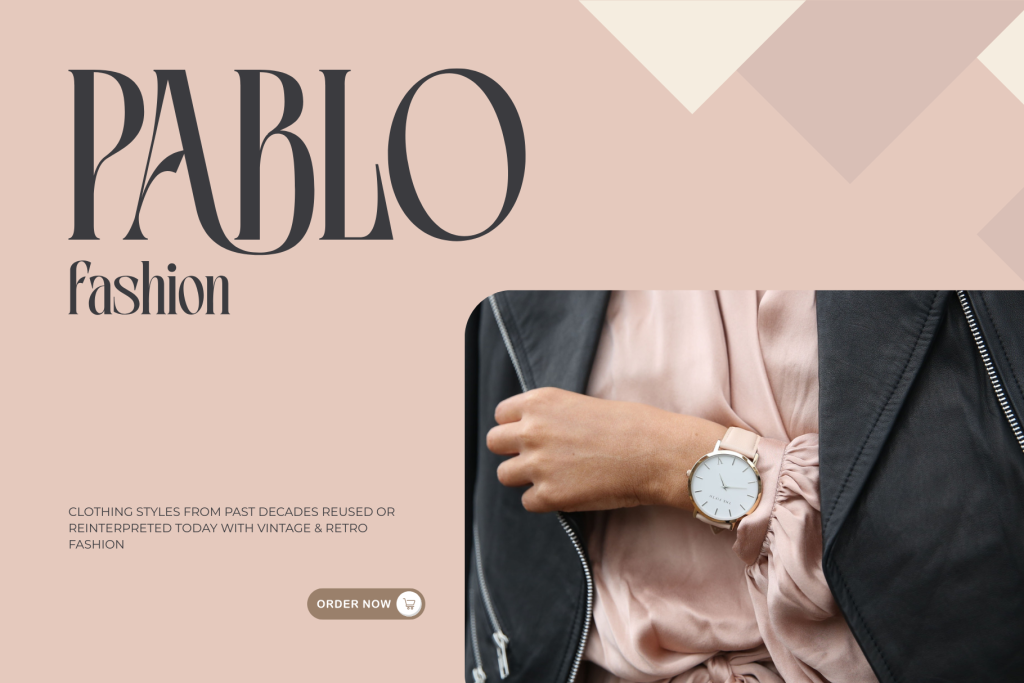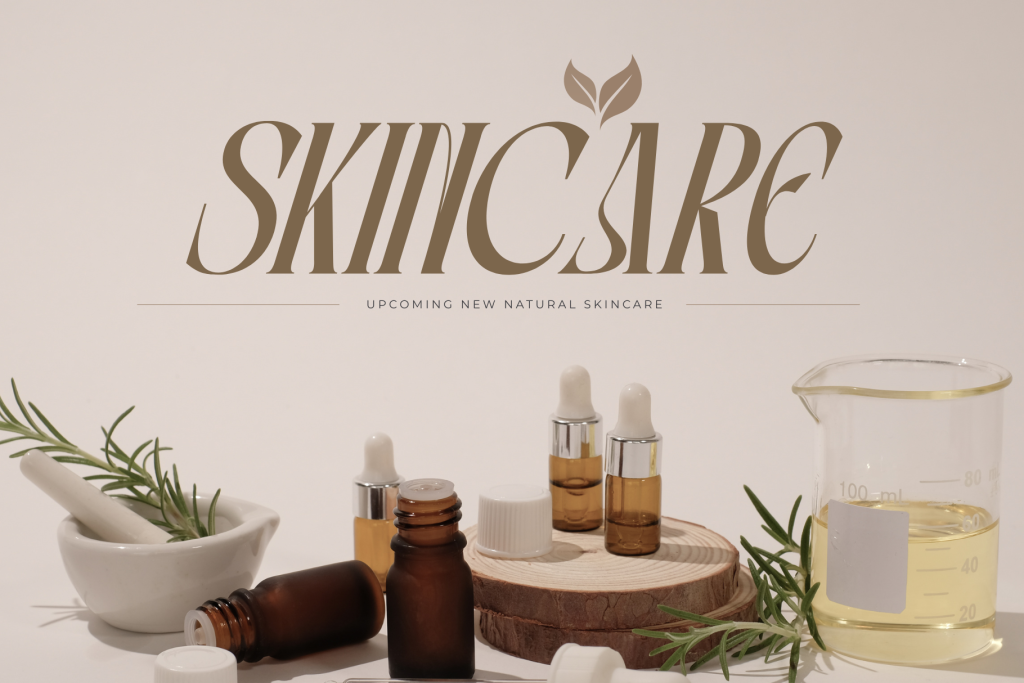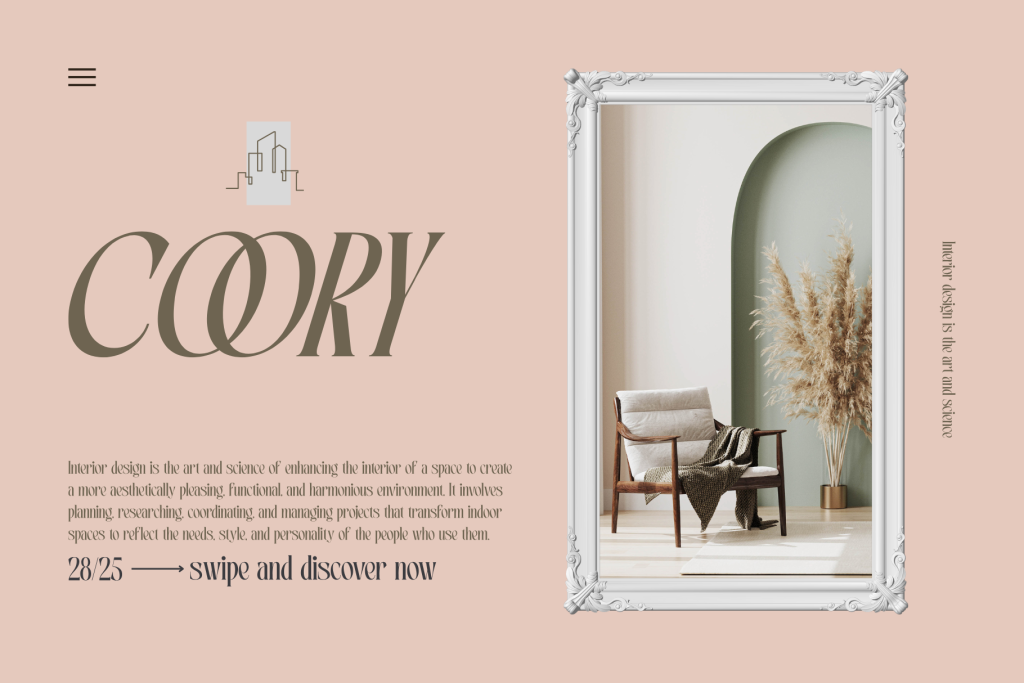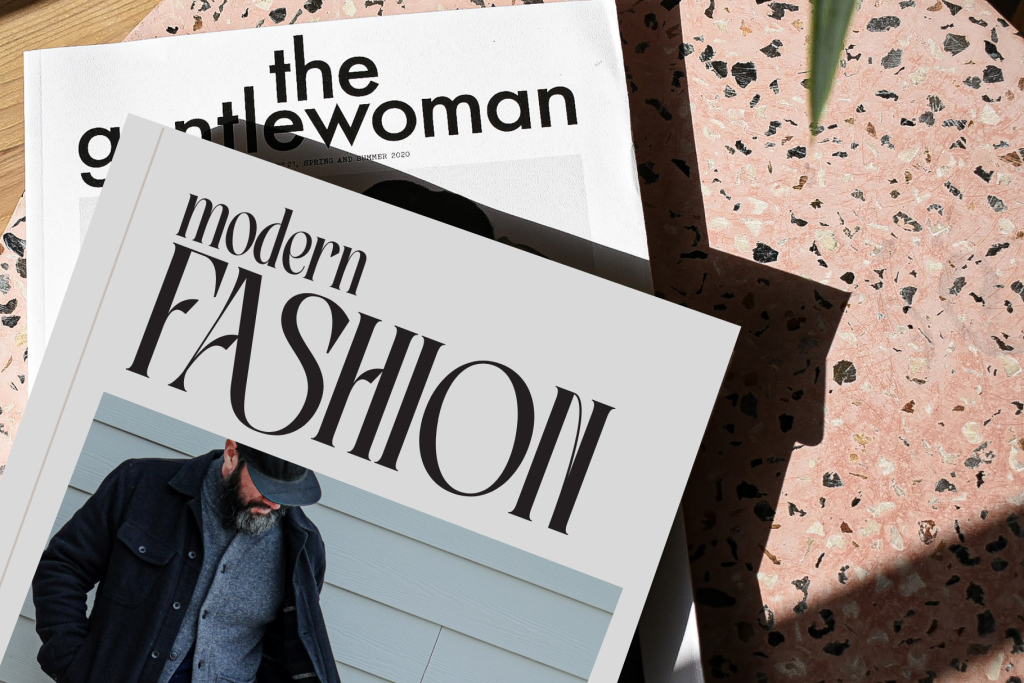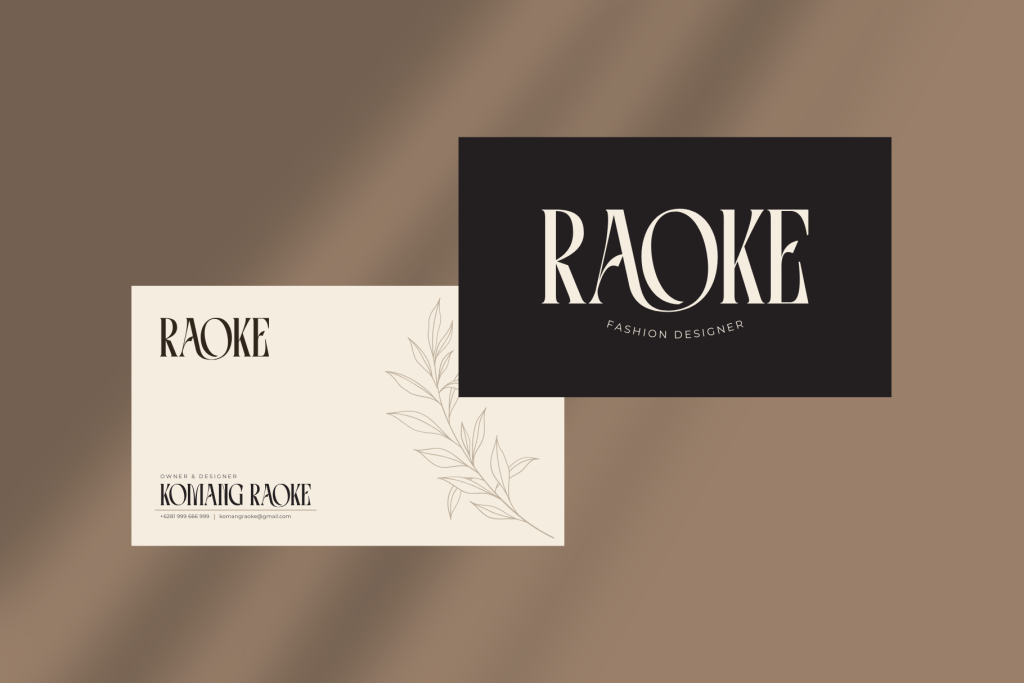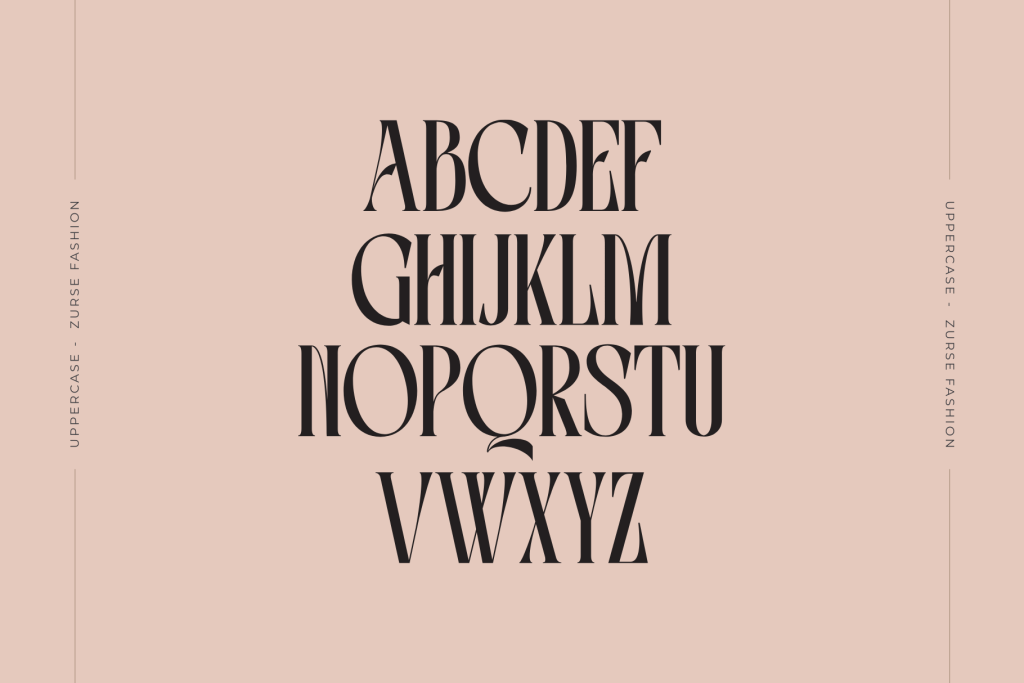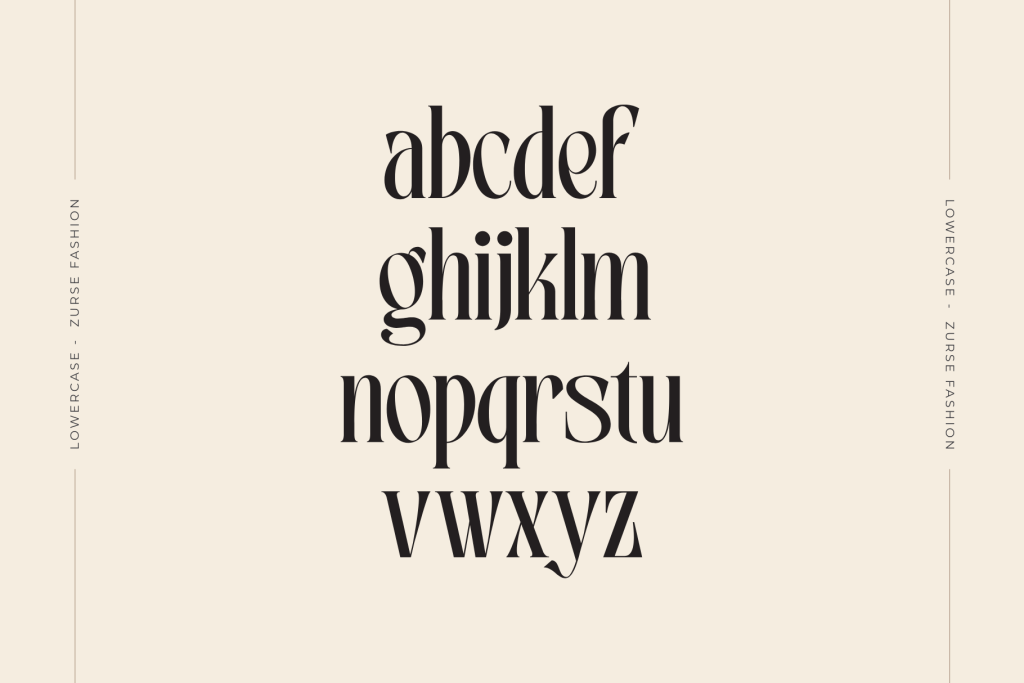
Zurse Fashion – Elegant Serif Font
Zurse Fashion offers beautiful typographic harmony for a diversity of design projects, including logos & branding, social media posts, advertisements & product designs.
• Multilingual Support
• Regular & Italic Font
• Elegant Serif With Ligatures
Zurse Fashion is a stylish and modern fashion font designed to elevate your brand identity. With its sleek lines and elegant curves, Zurse adds a touch of luxury and sophistication to any project. Perfect for fashion labels, logos, websites, and editorial designs, it captures attention with minimal effort. Zurse blends contemporary style with timeless appeal, making it the go-to choice for brands that want to stand out with confidence and flair.